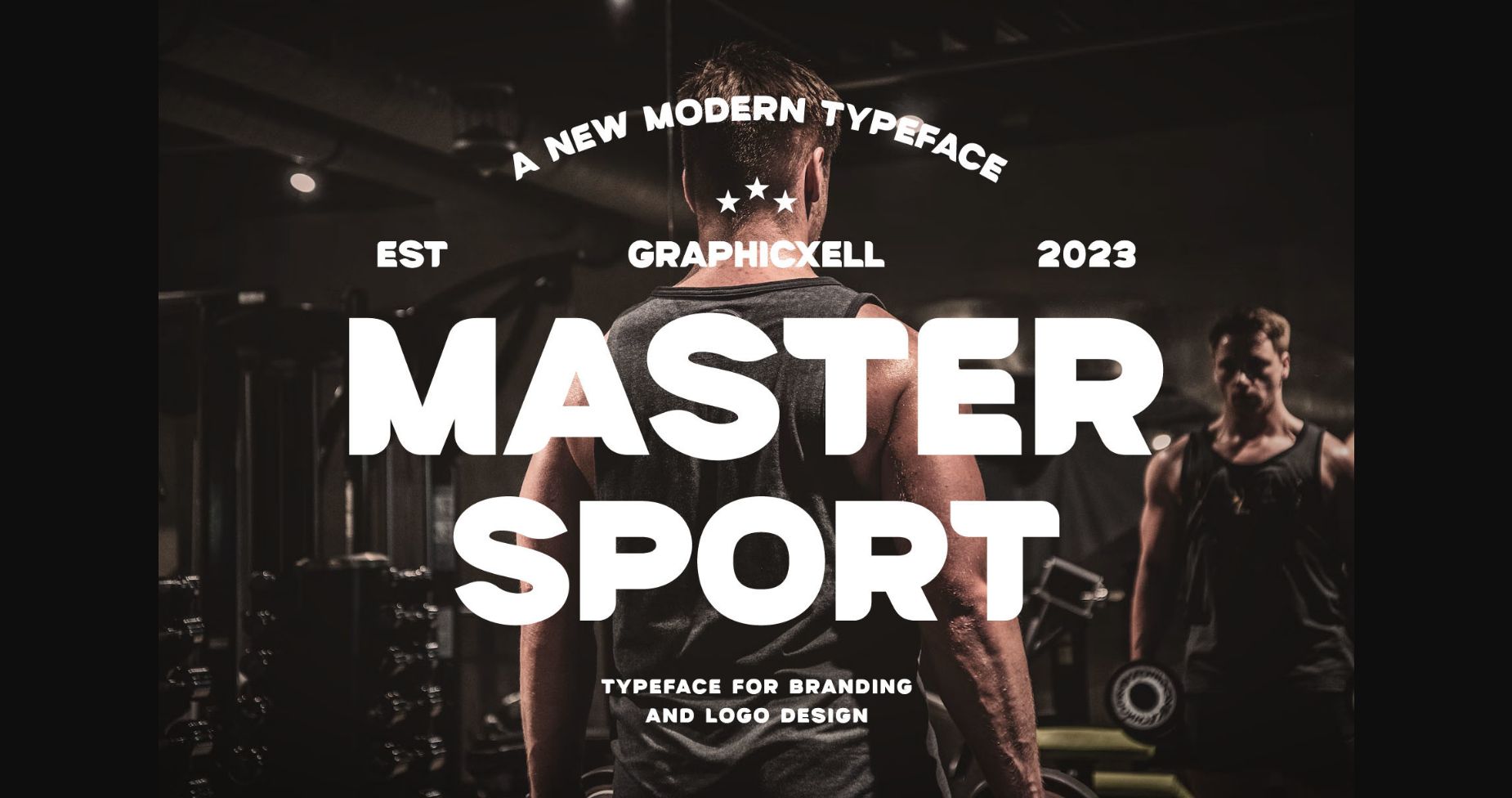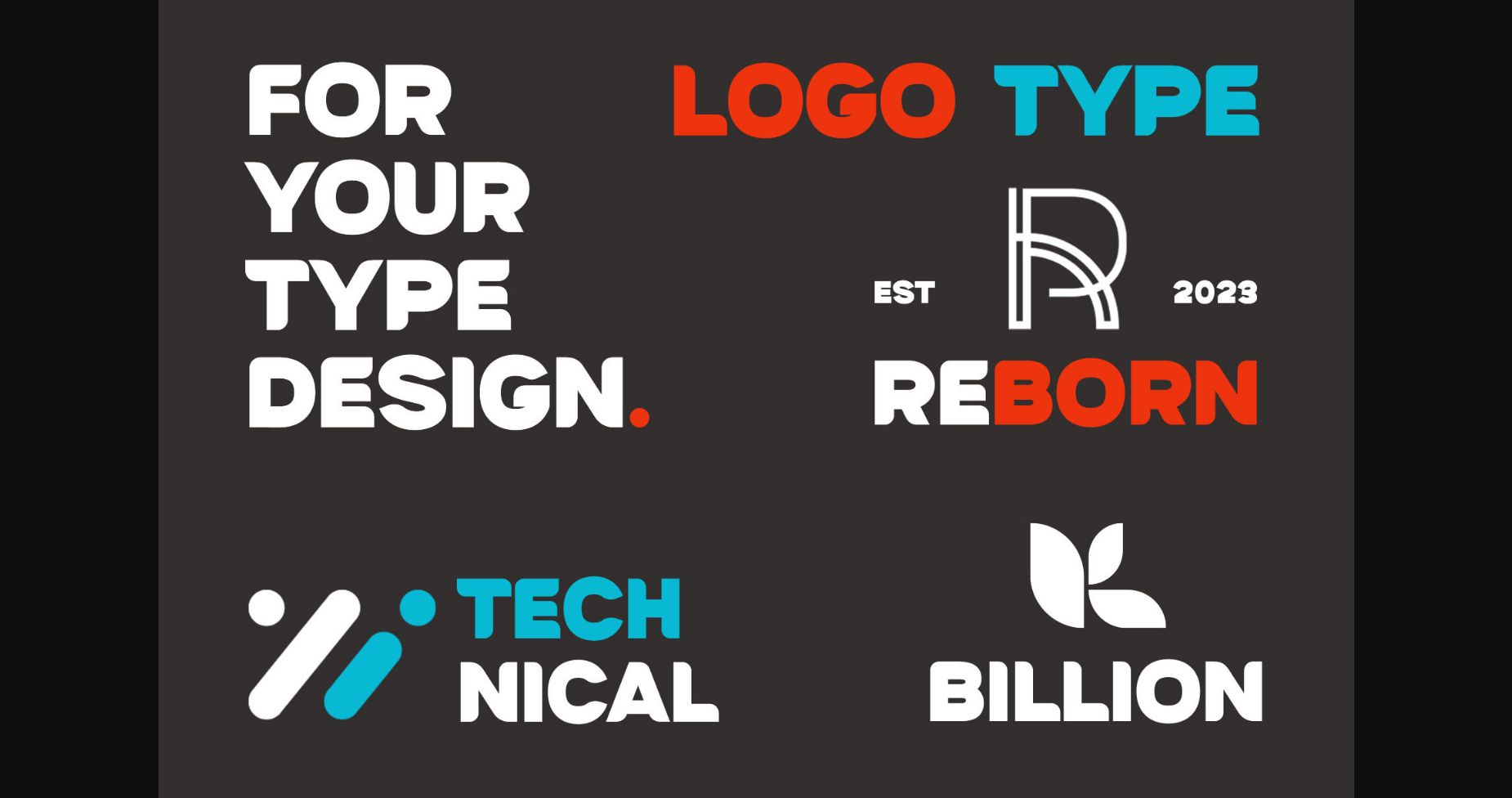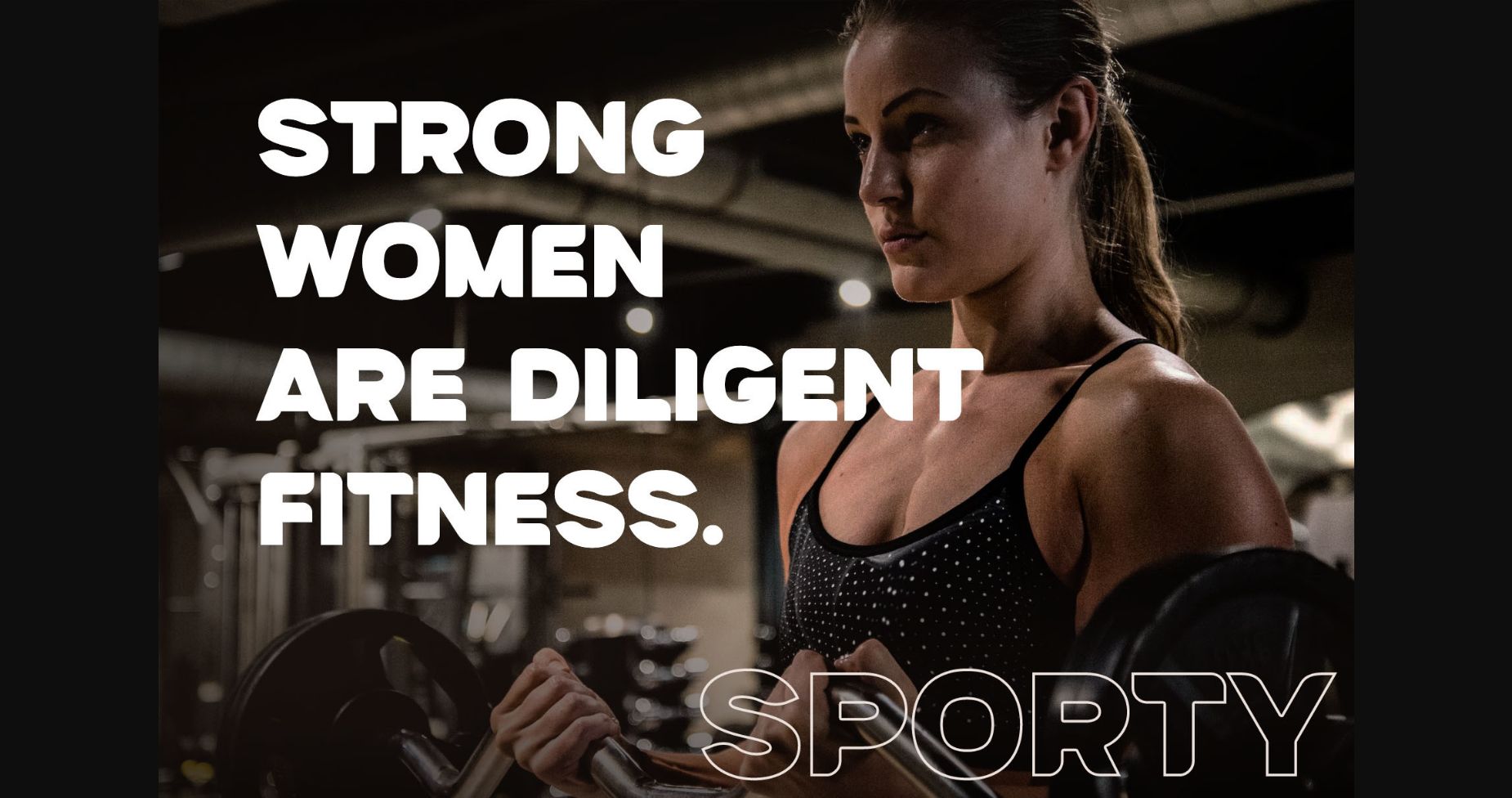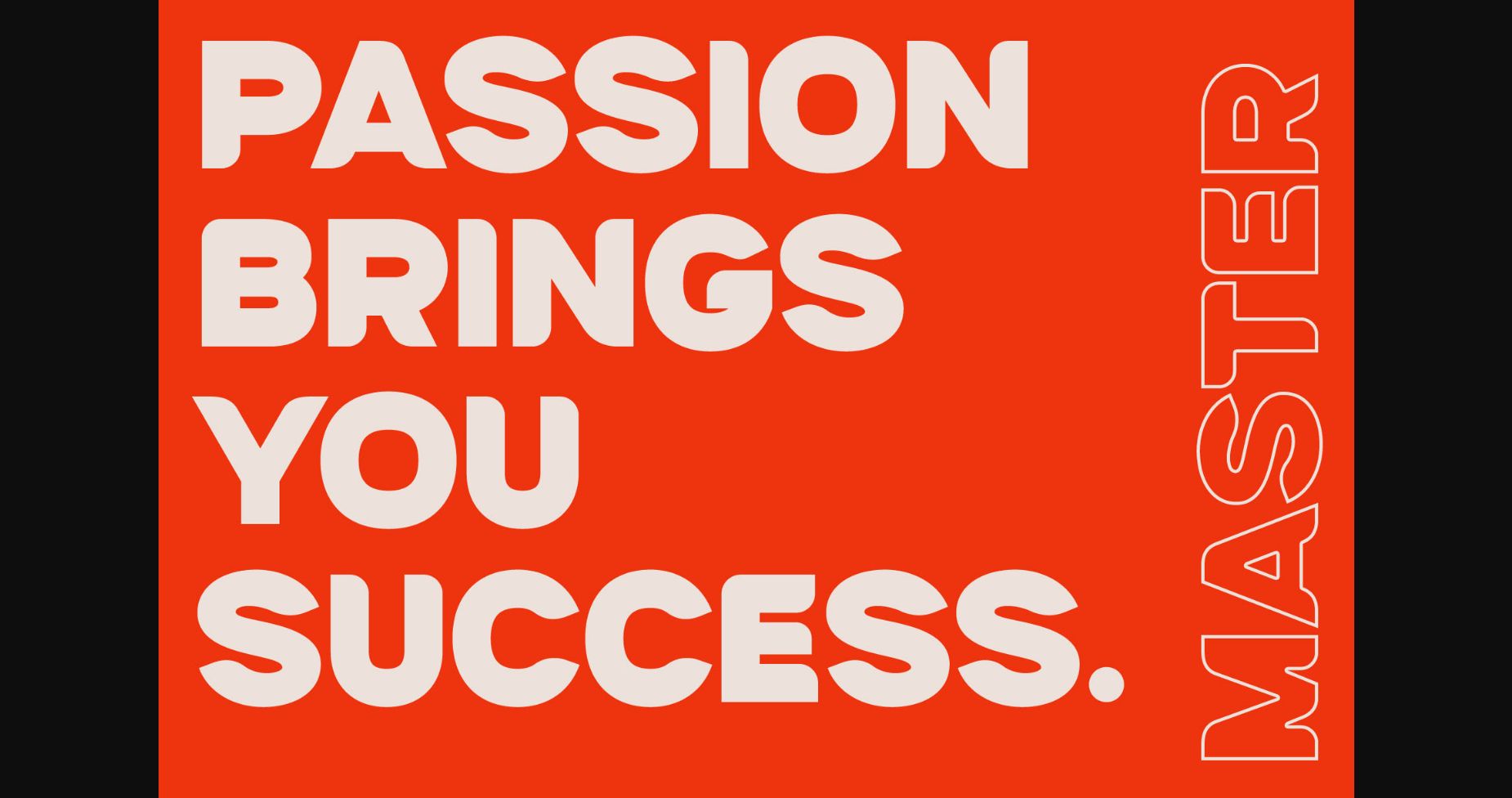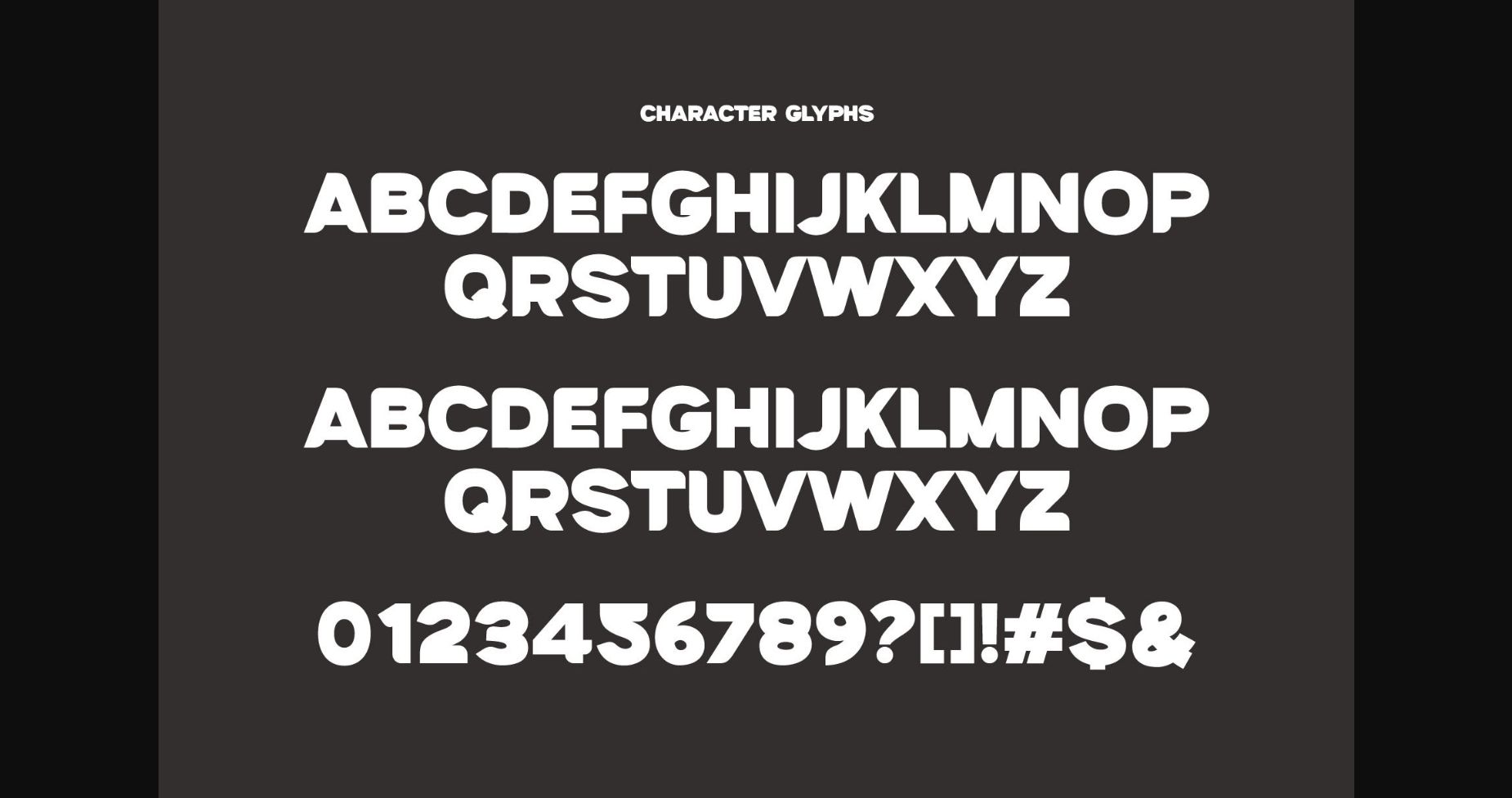
Master Sport Font
About Master Sport Font
Master Sport is perfect for giving your designs a modern, energetic feel. It features clean, sharp lines and a bold, confident style that stands out from the crowd. Its versatility makes it suitable for a variety of design projects.